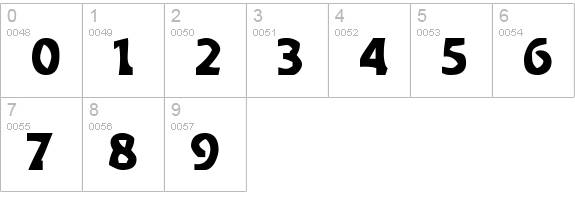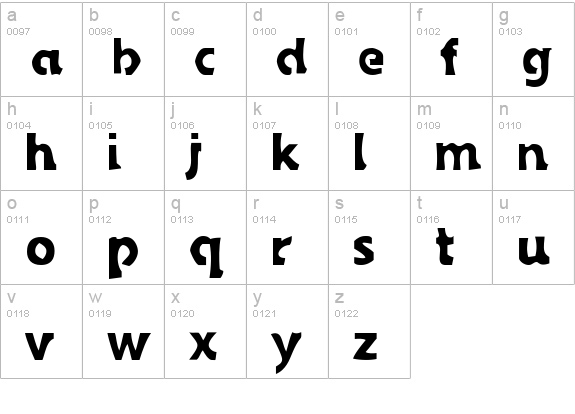
Sledge Font Details
Sledge font is a bold and powerful typeface that commands attention with its strong and sturdy design. This font exudes a sense of strength and resilience, making it perfect for projects that require a bold and impactful statement. Its thick strokes and sharp edges give it a distinct and unique appearance, setting it apart from other fonts. Not only does Sledge font make a bold statement, but it is also versatile and flexible, making it suitable for a wide range of design projects. Whether you need a font for headlines, logos, posters, or any other creative endeavor, Sledge font will deliver the impact you desire. One of the best things about Sledge font is that it is free! Yes, you read that right. This amazing font is freely available to download at FontsMarket.com. You can now enhance your designs without breaking the bank. With Sledge font, you no longer have to compromise on quality or pay hefty fees for premium fonts. FontsMarket.com provides a reliable and user-friendly platform where you can easily access and download Sledge font without any hassle. It's just a few clicks away from elevating your design projects to the next level. So why wait? Get your hands on this fantastic font today and let your creativity thrive with Sledge font.